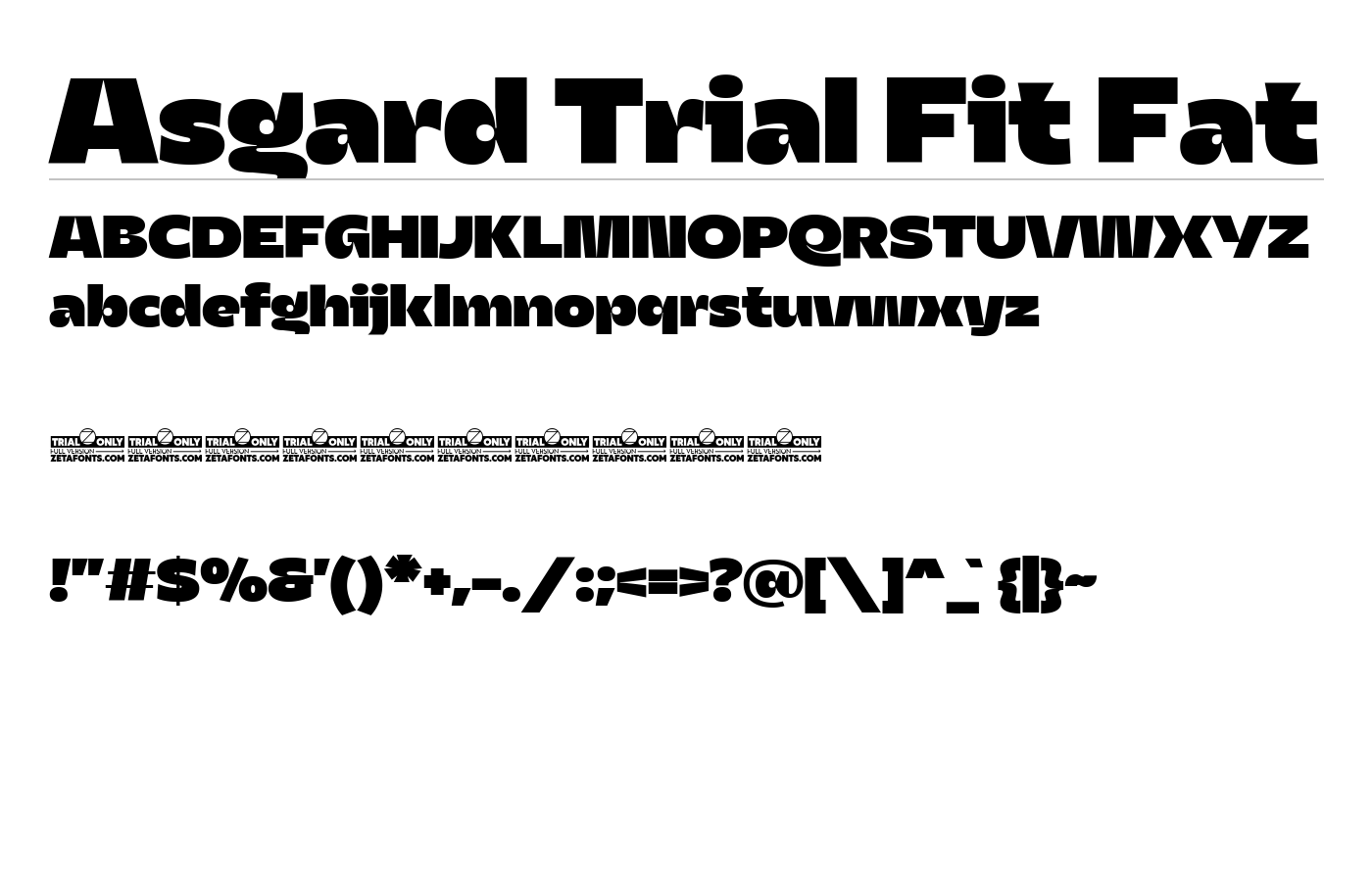
Asgard Trial is a bold, wide sans serif font with a strong and playful personality. Its heavy weight, tightly spaced letters, and quirky curves, especially in characters like "g" and "Q," make it ideal for impactful headlines, logos, and branding that demands attention. This font works well in creative and modern contexts where a fun yet confident tone is desired.
Asgard Trial Font
About Asgard Trial Font
| Font family | Asgard Trial Font |
| Languages supported | Latin, Greek, Cyrillic, Symbols |
| Designer | Francesco Canovaro |
| Font subfamily | Expanded |